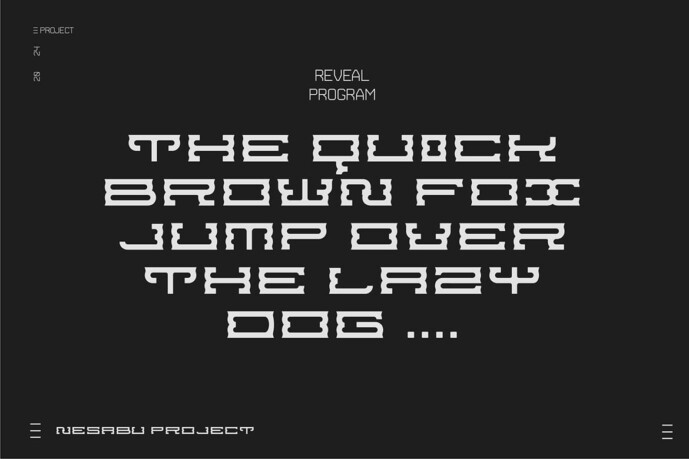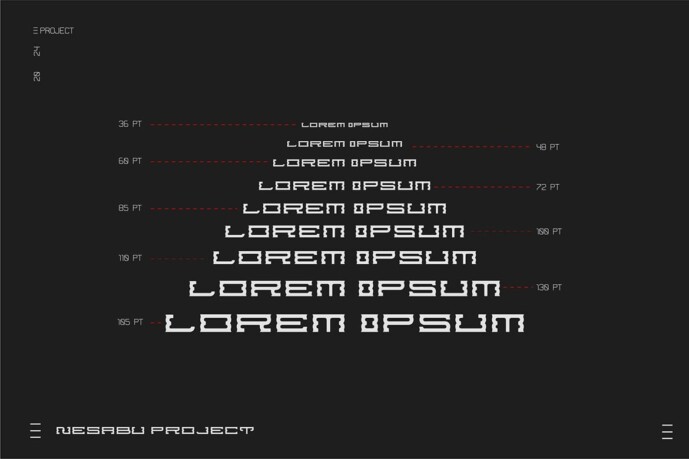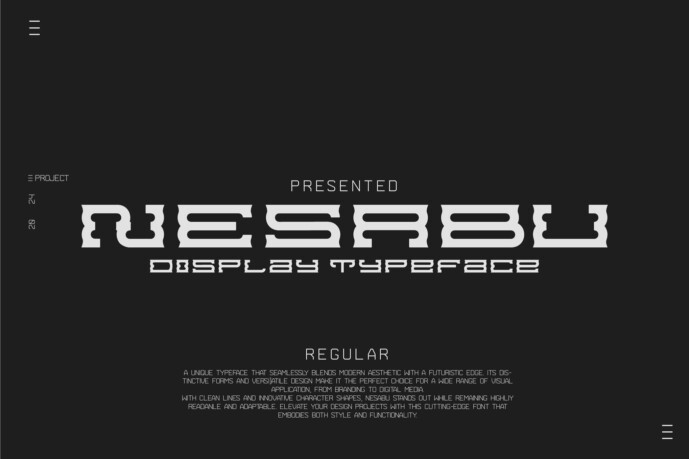
Nesabu Font
Designer: GangsLock
Nesabu is a bold sans serif font featuring modern, futuristic, and clean characters that appear to dance along the baseline.